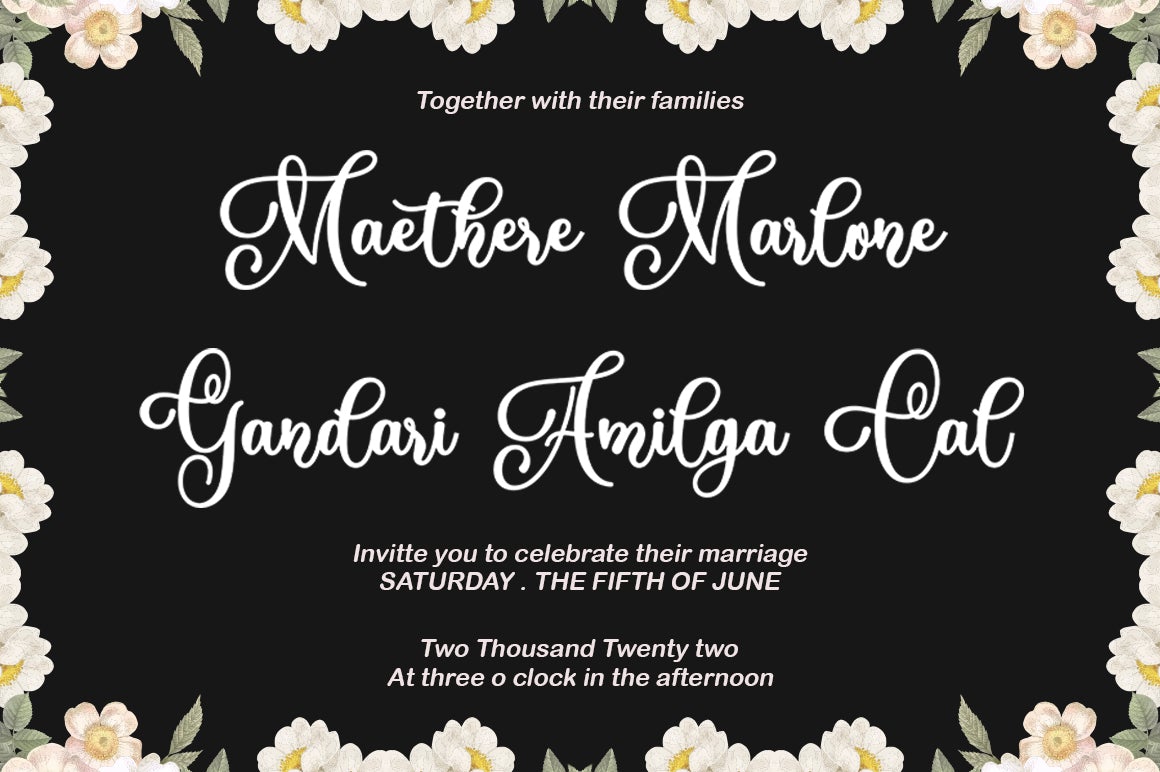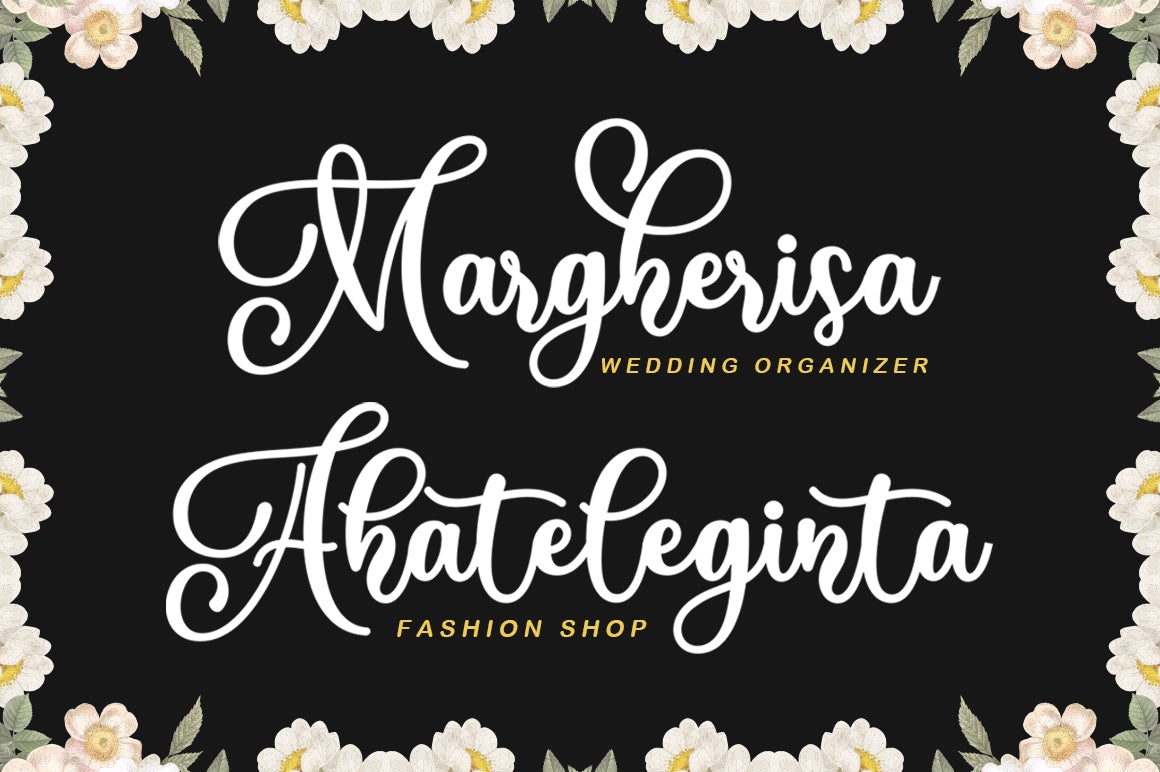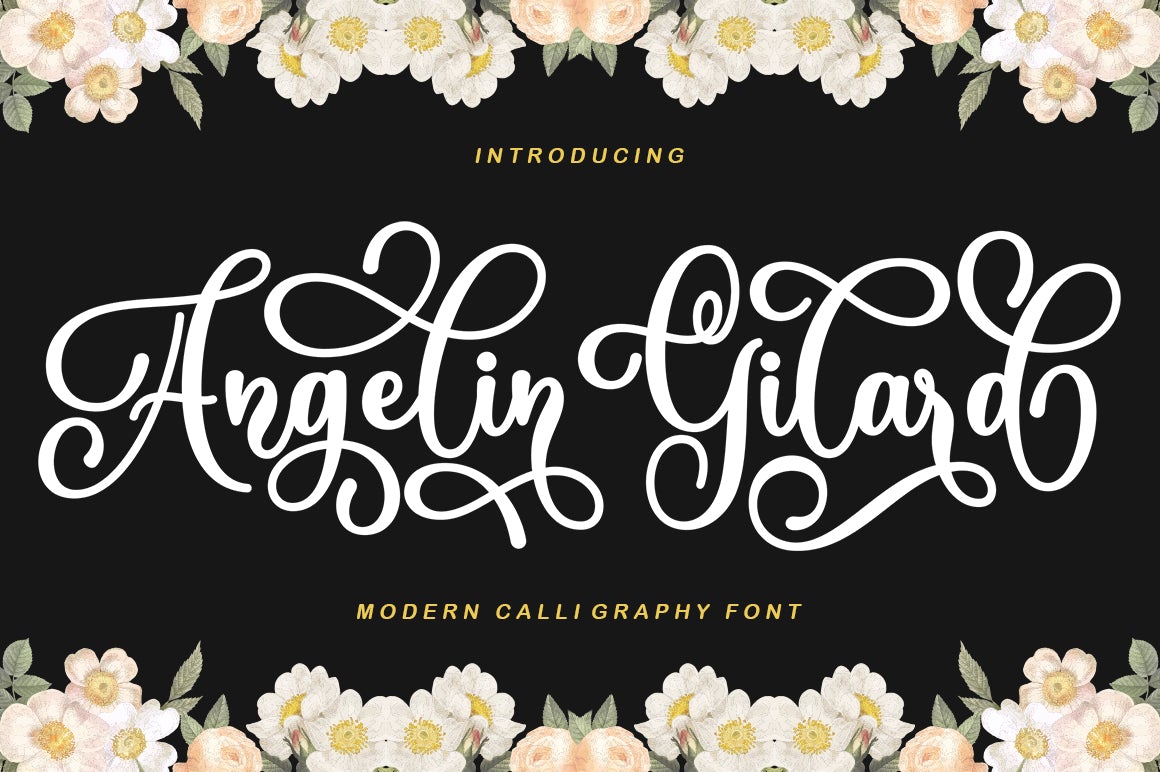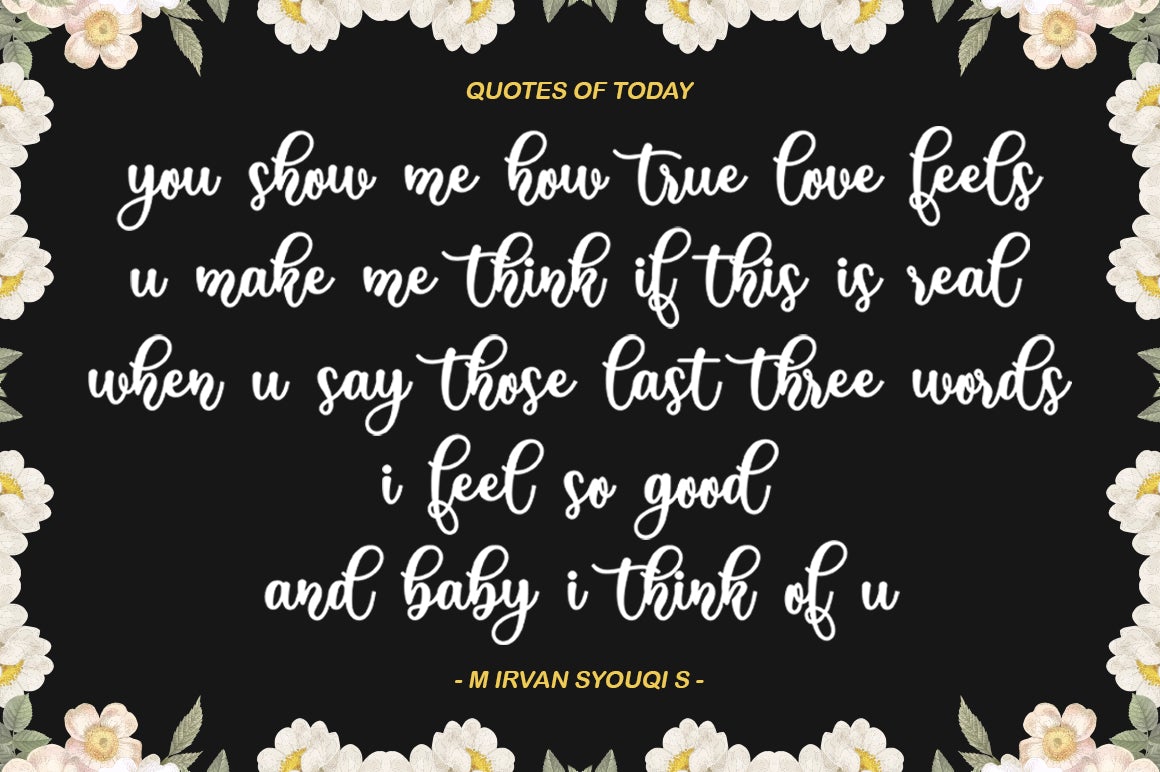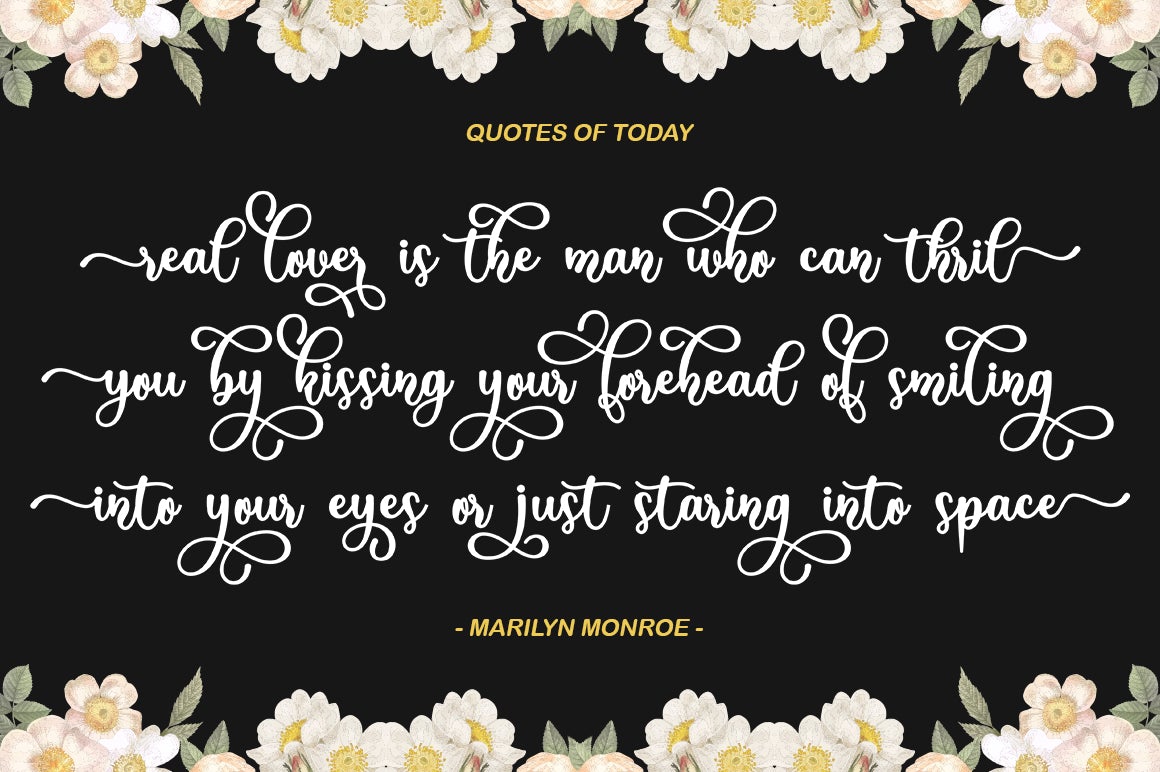
Angelin Gilard
Angelin Gilard is a handwritten script font with varying baseline, which is designed to convey elegance and style. Can be used for various purposes such as posters, logos, t-shirt, signage, businnes card, magazines, book cover, wedding invitation, greeting cards etc. To enable the OpenType Stylistic alternates, you need a program that supports OpenType features such as Adobe Illustrator CS, Adobe Indesign & CorelDraw X6-X7. Files included: – Angelin Gilard.Otf – Angelin Gilard.Ttf To enable the OpenType Stylistic alternates, you need a program that supports OpenType features such as Adobe Illustrator CS, Adobe Indesign & CorelDraw X6-X7, Microsoft Word 2010 or later versions. and there are additional ways to access alternates/swashes, using Character Map (Windows), Nexus Font (Windows), Font Book (Mac) or a software program such as PopChar (for Windows and Mac). Thank you!